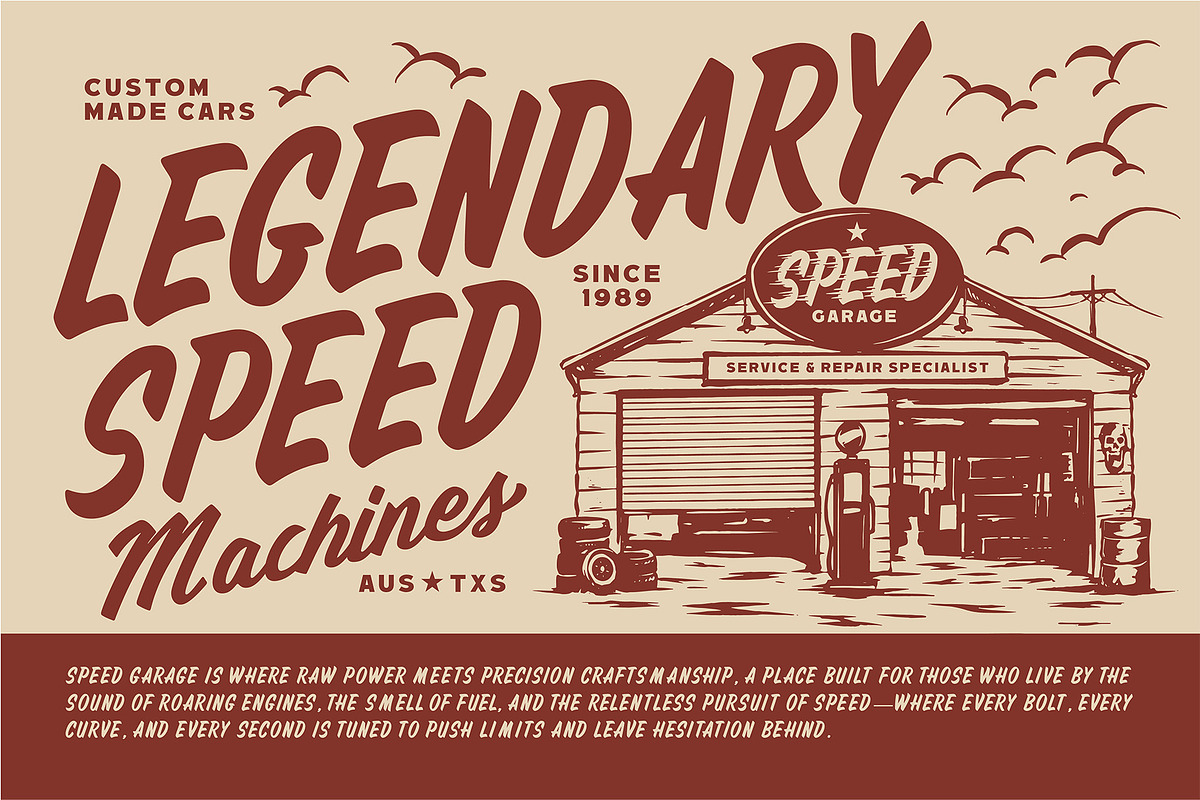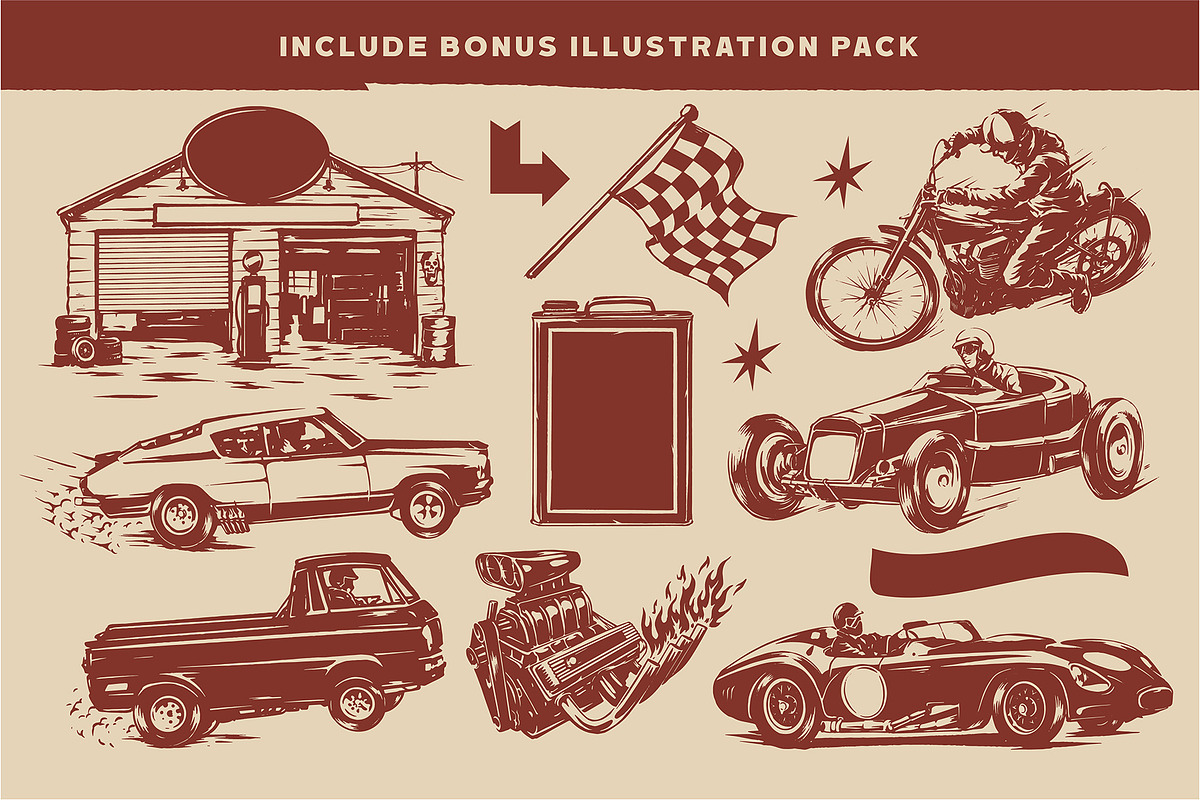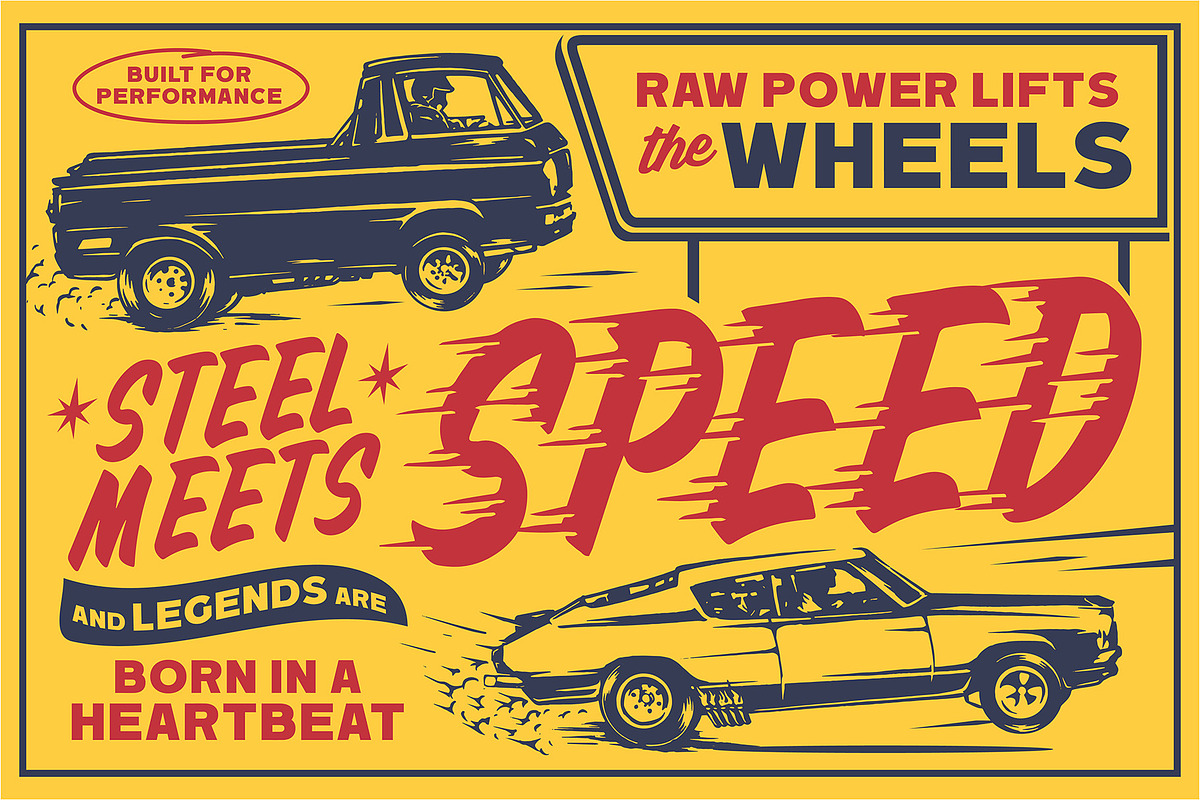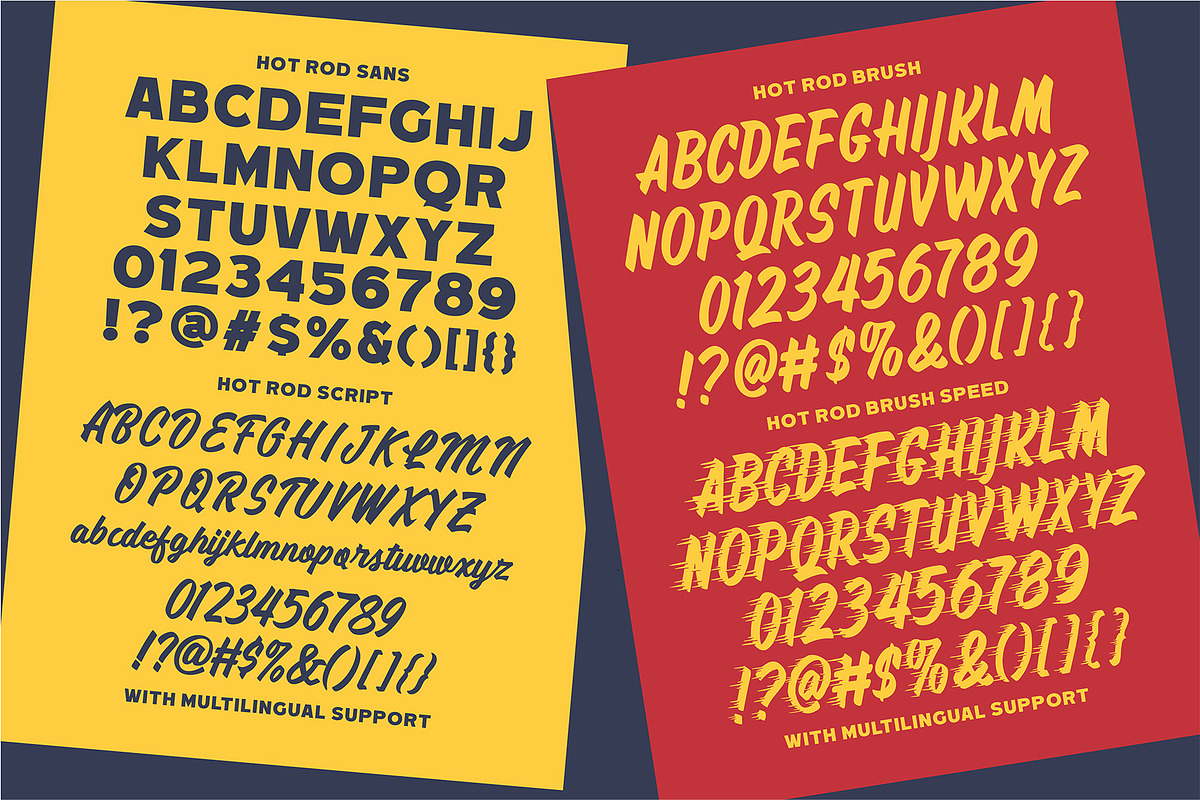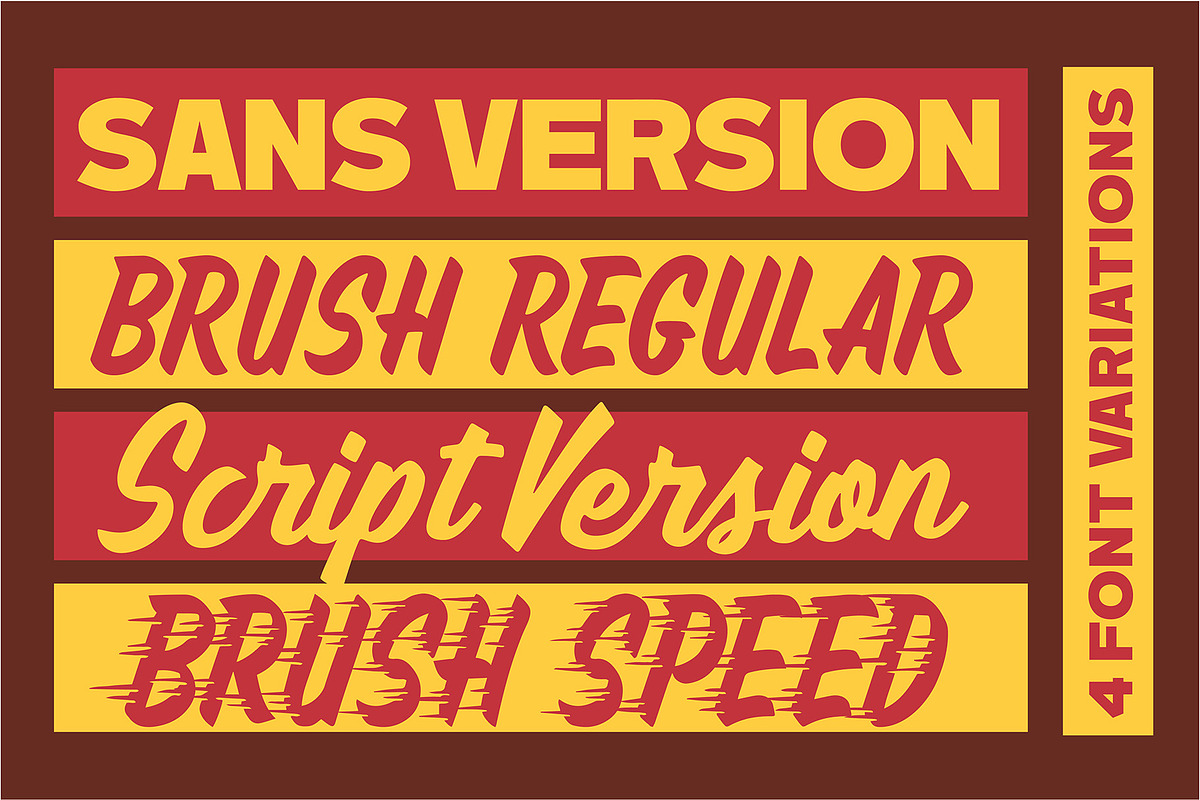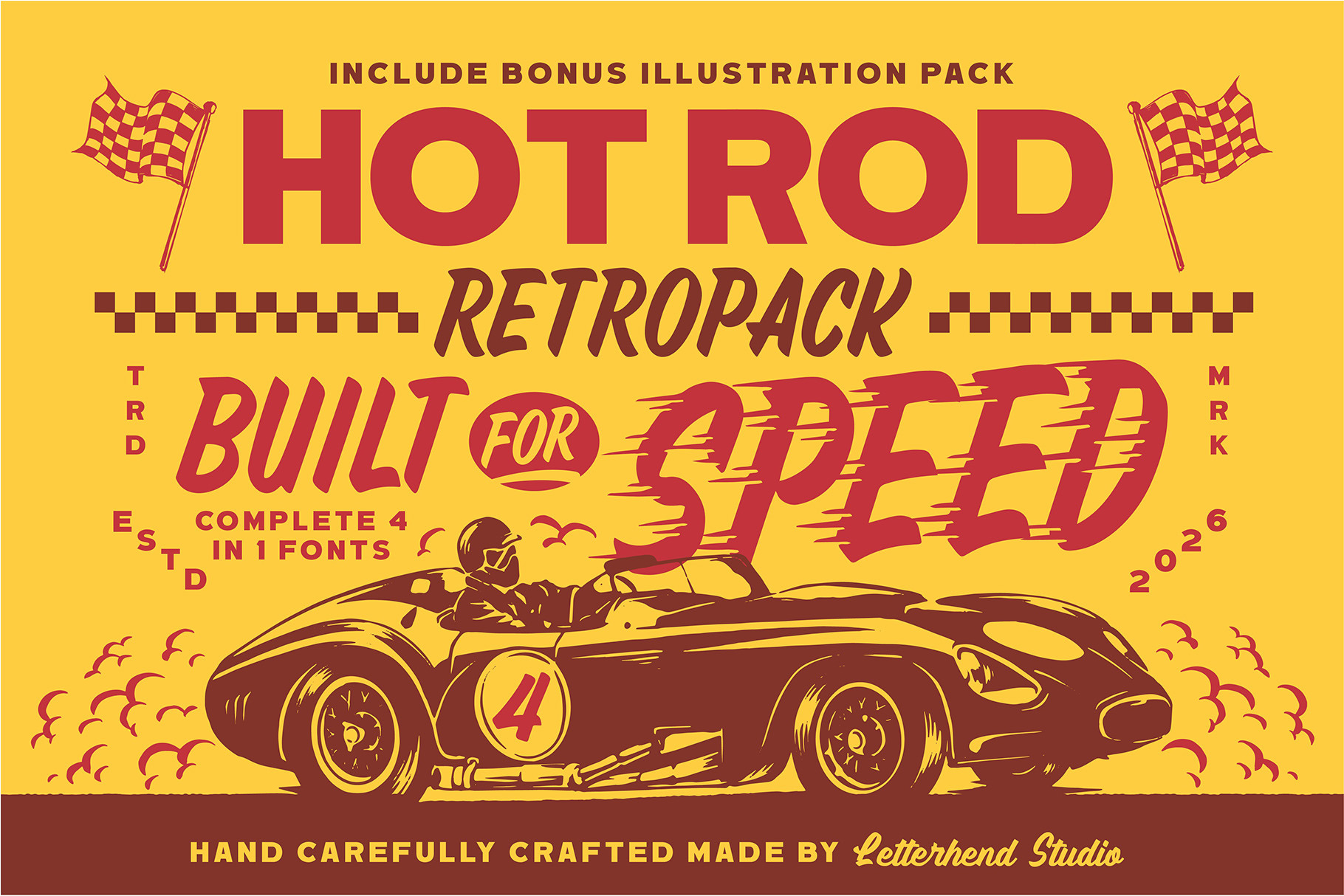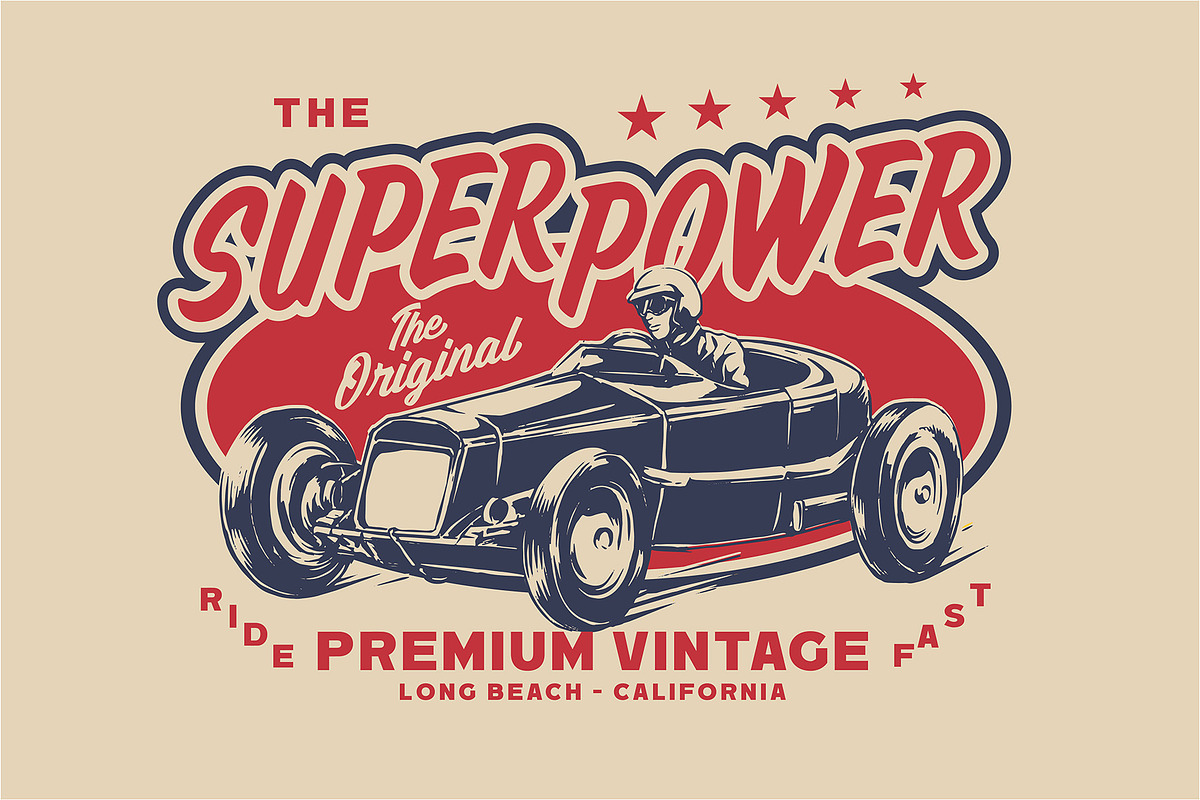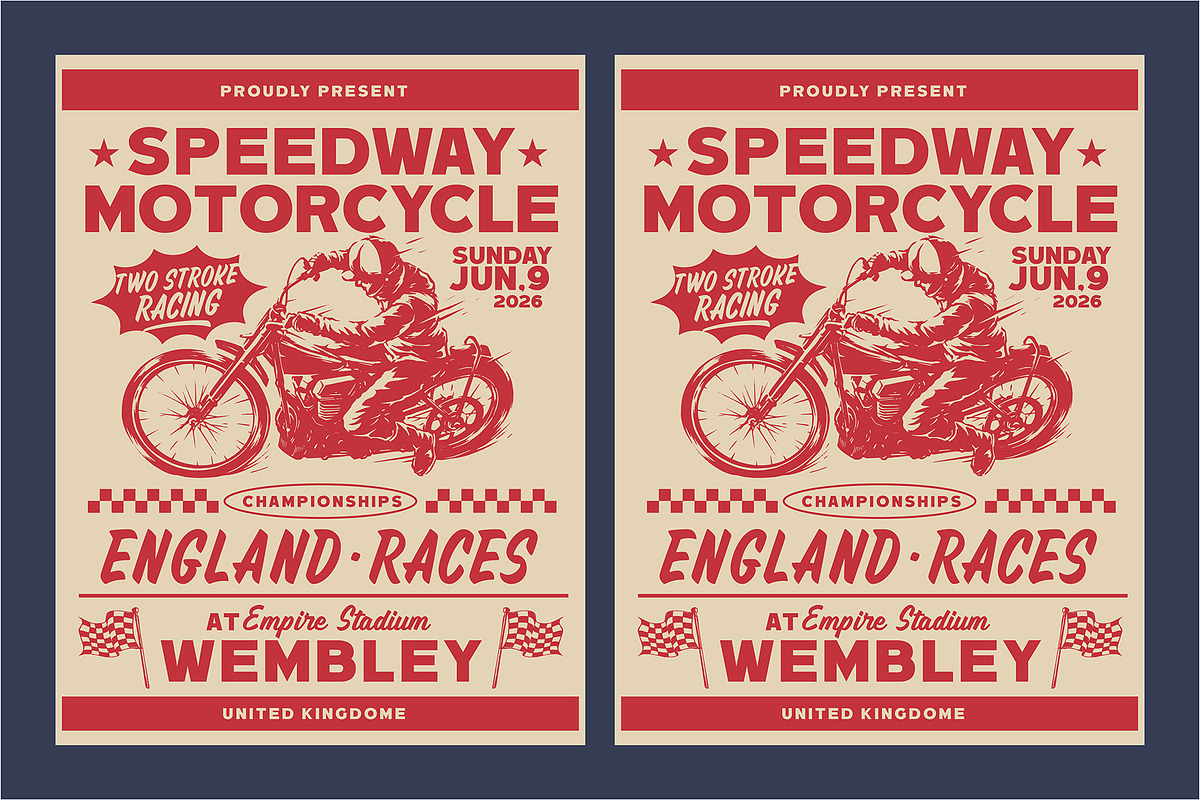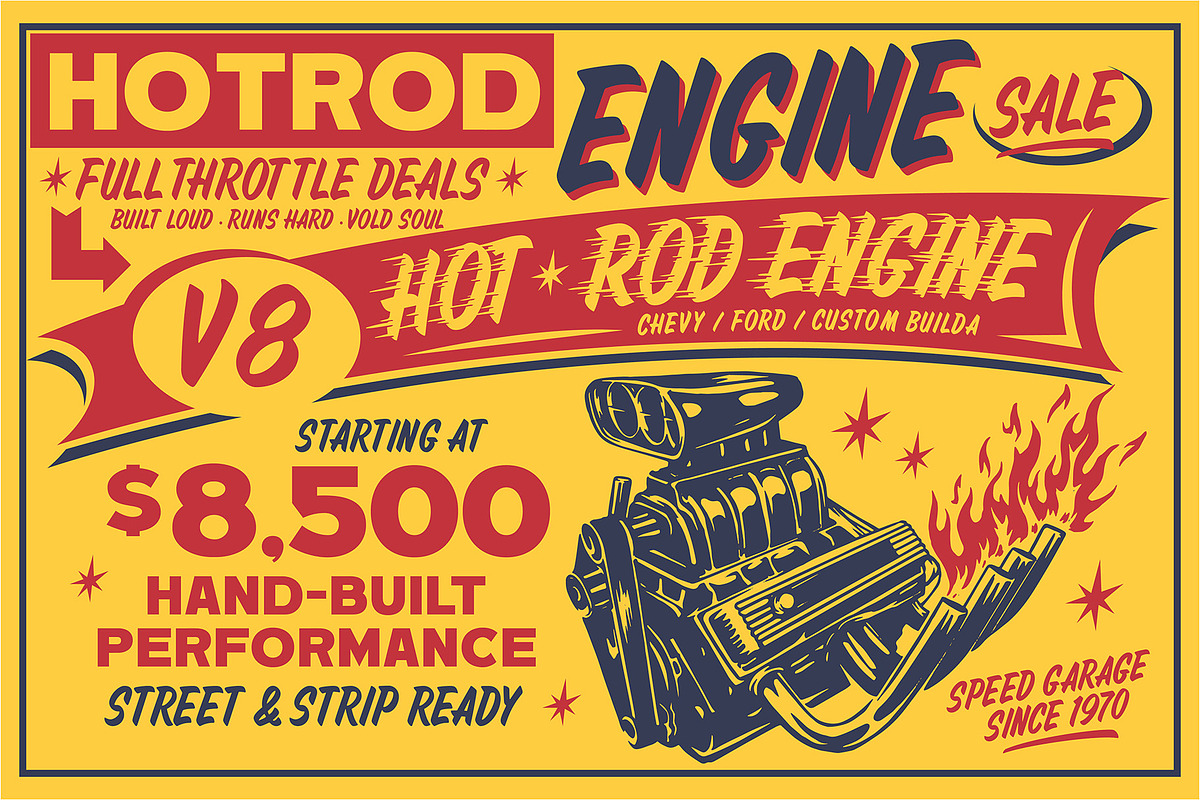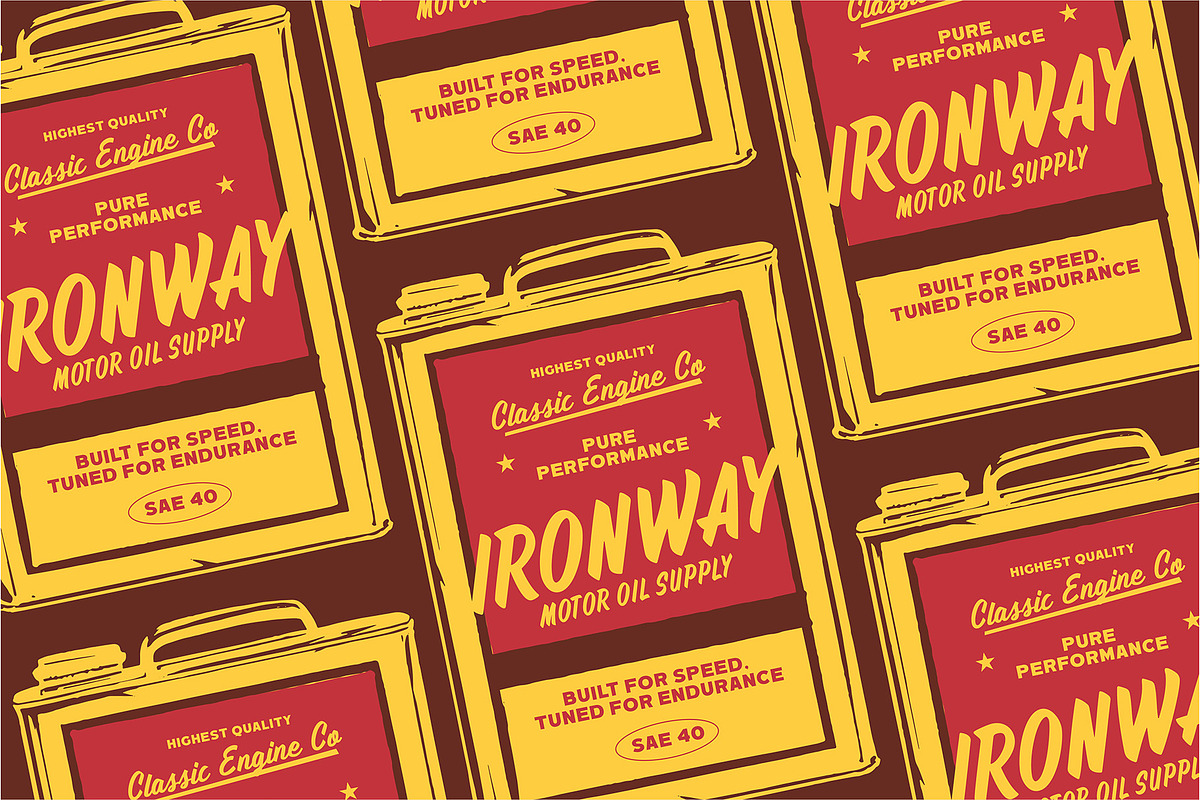
Hotrod Retropack Retro Font Pack
Hotrod Retropack is a bold retro display collection inspired by classic racing posters and vintage garage signage. The letterforms feature strong strokes, dynamic angles, and energetic shapes that capture the spirit of speed and mid-century automotive culture. With its punchy presence and nostalgic attitude, this set is built to stand out in headlines and large layouts. Features :
- Sans, Brush, Script & Brush Speed